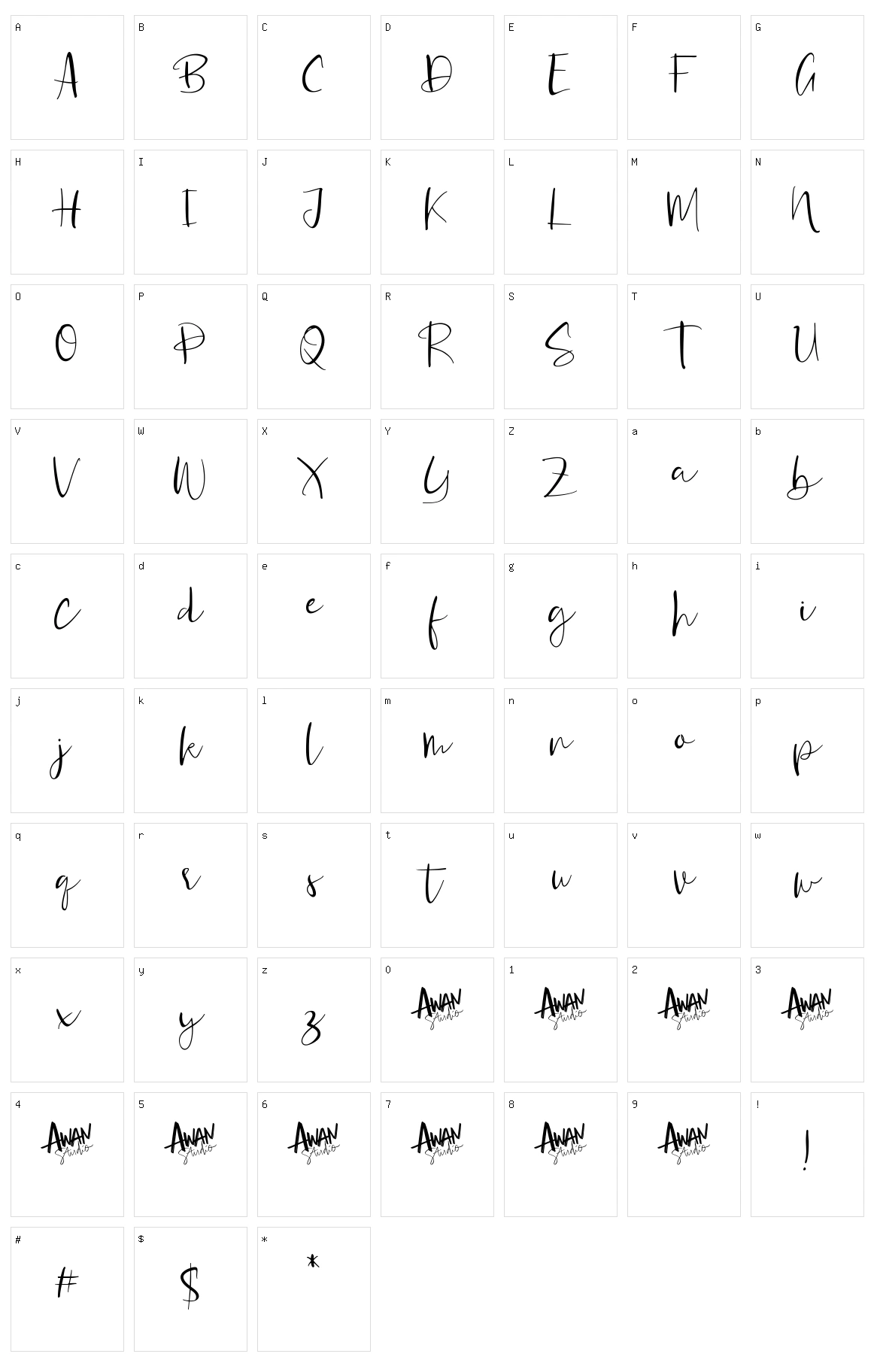
The free font Rossetta is carefully designed by Awanstudioz, showcasing a thoughtful balance of creativity and usability and falls under the Script font style. When you download the ZIP file, it contains only 25.64 KB of font files, making it lightweight and quick to download. Please review the license details below to understand permitted usage and distribution rights. If license information is not available, we recommend using this font for personal projects only or contacting the author directly for commercial usage permissions.